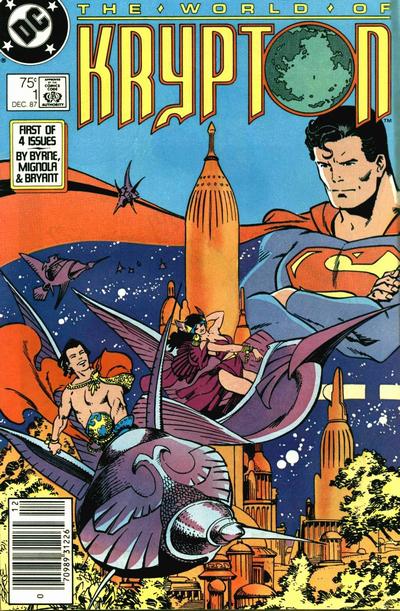
Steven Bové is an artist and graphic designer who spent a few years in the DC Production Department, and while there designed about a dozen logos for the company. He’s not well known in the comics community, except by those who worked with him, including myself. Steve joined DC in 1986, about two years before I left staff there to go freelance full-time, and he quickly became my right-hand man in the office, someone I could depend on to get things done well and quickly. We’ve stayed in touch since then, and I thought I’d spotlight his logo work here. I’ll let Steve introduce himself:
“I grew up around comics and remember Superman #163 vividly. The cover just got my attention. The coloring was particularly effective. I remember trying to copy the graphics (a favorite pastime) of that and many other comic covers. At that time comics were everywhere, in every candy store or barbershop. But it was Daredevil #4 that really made the difference for me. There was this energy about it and the strong cover graphics were completely unique at the time. I don’t believe I had ever seen WHITE used as a background color choice and that was unusual.
” I was a kid, but most teachers recognized my artistic potential and that would lead to a more focused path. I joined DC in 1986 and really just went to work. It was all a blur from the moment I walked into the Production Department: think fast, work fast and deliver quality. It put me in demand from editorial and would often confuse where it was I was best suited. Todd Klein, the lead production artist, looked at me one day and said just as he was leaving to go freelance, “I knew I could go the minute you arrived.” I felt the weight of the world on my shoulders at that point. To make matters worse I was constantly bugging editors to look at my art and help me to eventually get it in print.“
As I’ve told Steve, I still feel bad about laying that burden on him!
The first DC logo assignment Steve was given was this one, in 1987. Steve remembers:
“Firestorm was a very interesting character and I knew I could come up with something stronger than the font that was being used at the time. Richard Bruning, Art Director, focused me by saying, “Remember, the character in essence is a modern concept”. That was the key and made the execution very easy. What made it work for me was the overlay with the nuclear symbolism in the letters. This would end up being a trademark of my logo work as I strived to get the characters’ symbol in the letter shapes.”
What Steve is talking about is that the symbolic atom art inside the main letters is done on a separate overlay so it could be held in a color, a technique we’ll be seeing in some of his other logos. I like this design. The large open letters are easy to read even with the atom art in black, as shown here. In style they’re block letters with strong angled stroke ends and extra points at each upper corner. No curves anywhere, which makes the contrast of the atom art, which is all curves, more effective. The second line is also block letters, but to my eye it’s not as effective because the stroke widths are not consistent. For instance compare the wide angular strokes on the Ns and very wide angular strokes on the M with the much narrower ones on the rest. It still reads fine, and all ties together well. The surrounding box gives the logo a second or third color option, making it more likely to read well on a cover. The atom art, by running through the open letters, adds a surprising amount of depth to the logo, which would otherwise be completely flat, an excellent design choice.
And here’s the logo’s first appearance on issue 65 of the title, looking good even with the atom art still in black.
Here’s another cover with the atom art in white and without the surrounding box. Still works well for me.
Also in 1987 Steve designed this logo for a four-part mini-series explaining Superman’s homeworld as revamped by John Byrne. The letterforms of the word KRYPTON are based on the interior title lettering by John Workman, seen here from issue 1:
Workman’s title is effective, with that very unusual Y giving the word an appropriately alien look. Steve has added inner shapes for all the letters, with some adjustments for better readability, including making the O smaller and less overlapped. And, of course, he’s put a map of the imaginary world in the O as well, continuing his theme of art inside open letters. The top line uses DC headline type in a font similar to Eurostyle, I believe from an optical typesetting machine, spread out to fill the width of the logo nicely. While John’s idea was original, Steve’s development of it makes it a better logo design.
Here it is on the first cover, showing how the double outline worked to allow a second color. This miniseries was followed by two more in a similar theme, and Steve’s logos were seen on those as well. I’ll cover them next.
This logo, which is all Steve’s design, is very Art Deco in style, which seems appropriate for the subject to me, as it looks back to Superman’s origins in the 1930s while still appearing stylish today, as Art Deco has remained in the design arsenal of comics and other media. The letterforms are mostly simple geometric shapes with the centers missing from the rounded parts, and overlapped to add a feeling of depth and also make the word shorter in width, a clever idea. The Daily Planet globe is positioned as both a symbol to fill out the top line and as a dot over the I in METROPOLIS. I like this logo a lot, though there is one small thing that bothers me: the lower corner of the S overlapping the I. All the other overlaps are left over right, that one should have been as well. In all, a fine design, and it’s interesting to see how much some of the letters can be overlapped and still read well. The shape of the S and the missing openings carries the design into almost abstract territory, and is a delight to see.
Here it is on the first cover, looking quite nice, though spoiled a little by that ugly type box right below it.
The third miniseries had this title. This is again all Steve’s design, using a letter style with serifs for SMALLVILLE. The serifs are somewhat inconsistent: wider on the S than elsewhere, for instance, but in general they follow the style of many serif fonts, with the exception of the A, where the center stroke is rounded. Not sure why Steve chose that, but it works fine. The entire logo is curved, with SMALLVILLE having a deep telescoped drop-shadow,where all the connecting strokes have been left out below the letters to create a large open space, a technique often used by Gaspar Saladino in his logos. THE WORLD OF is in set type in the font Copperplate, which is very wide and has tiny serifs, both tying into the lower word and contrasting it. The solid letters of the top line also contrast with the open letters of SMALLVILLE. By itself, this would be a competent but unexciting logo, but there’s more:
The Hellblazer logo looks like the top line is either modified Trajan (with the serifs chopped off) or perhaps Optima. The O’s in John Constantine, definitely don’t look like Optima. So I guess I’m not sure.